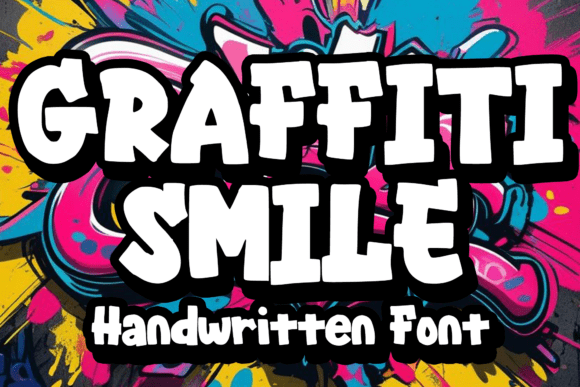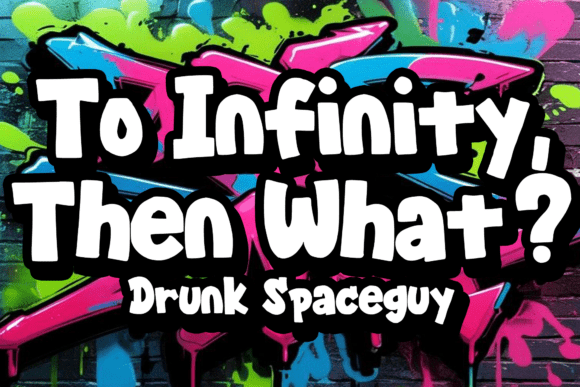
Graffiti Smile Font
Introducing Graffiti Smile, a vivacious fusion of bold street graffiti and playful comic-flavored artwork! This font invites you to take your designs to the next level with its standout expressive nature. Perfectly aligned for those seeking to imprint a lively, fun vibe to their line of clothing like t-shirts, book designs that pop, unique street art creations, and memorable greeting cards. Graffiti Smile also thrives when making eye-catching stickers, dynamic posters, and engaging banners. Dive into a creative adventure with Graffiti Smile and let your design tap into the exuberant world of fun, cheer, and bold style!